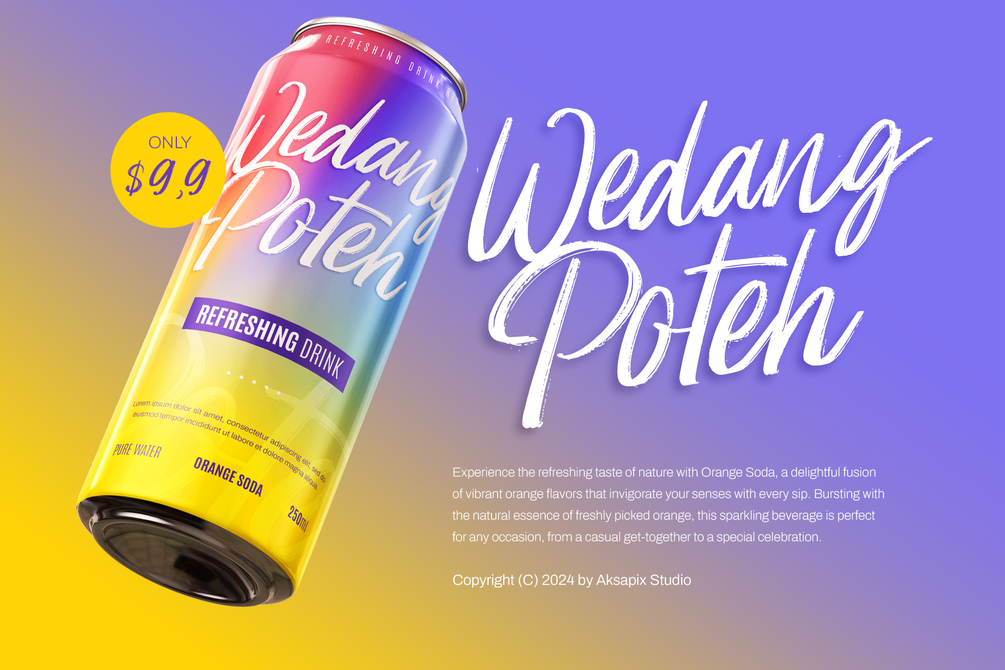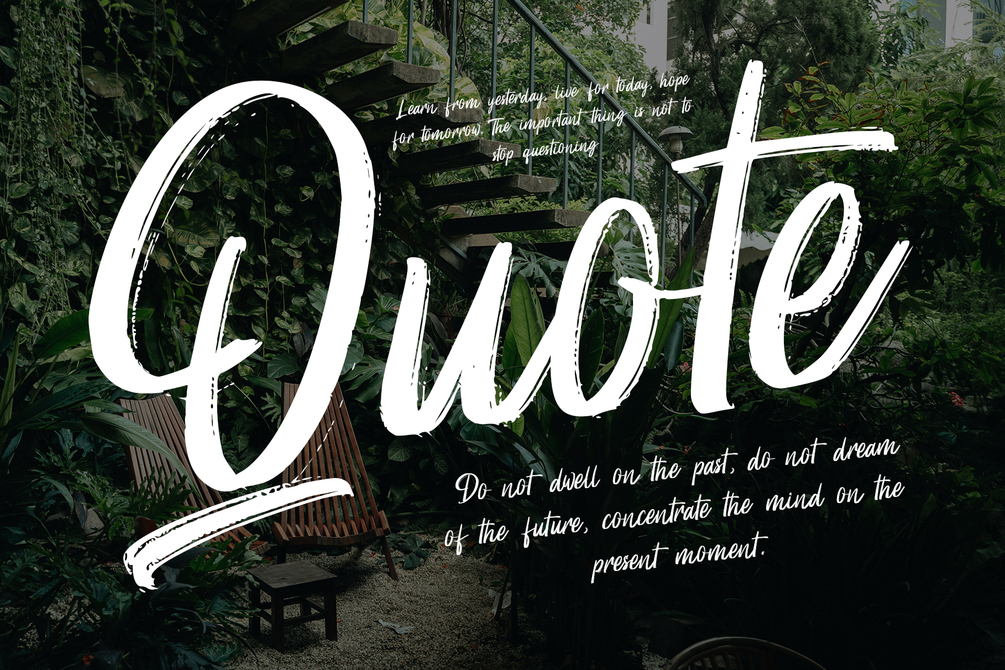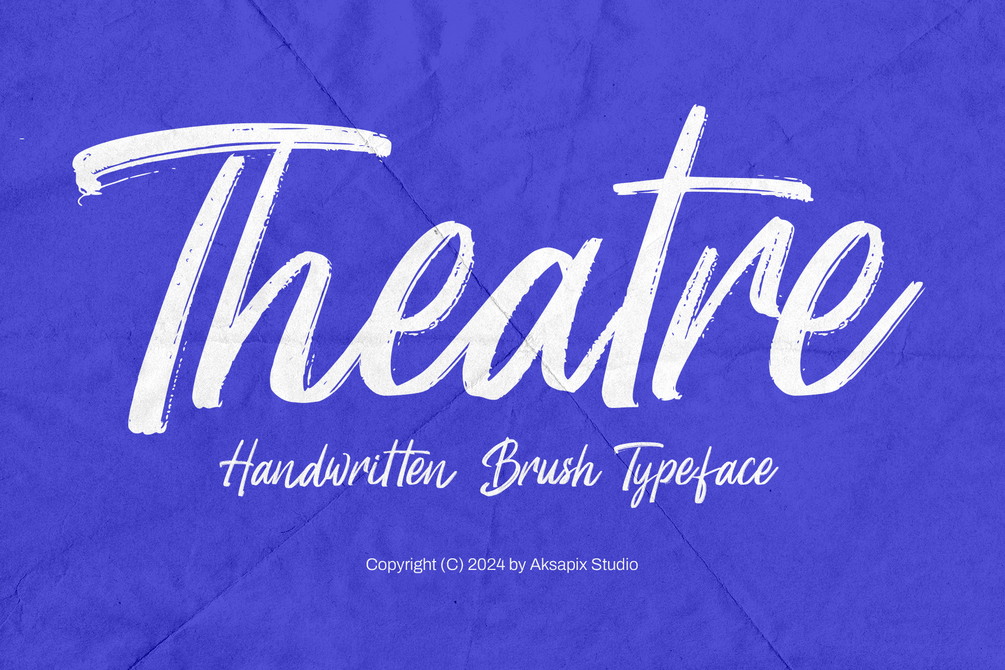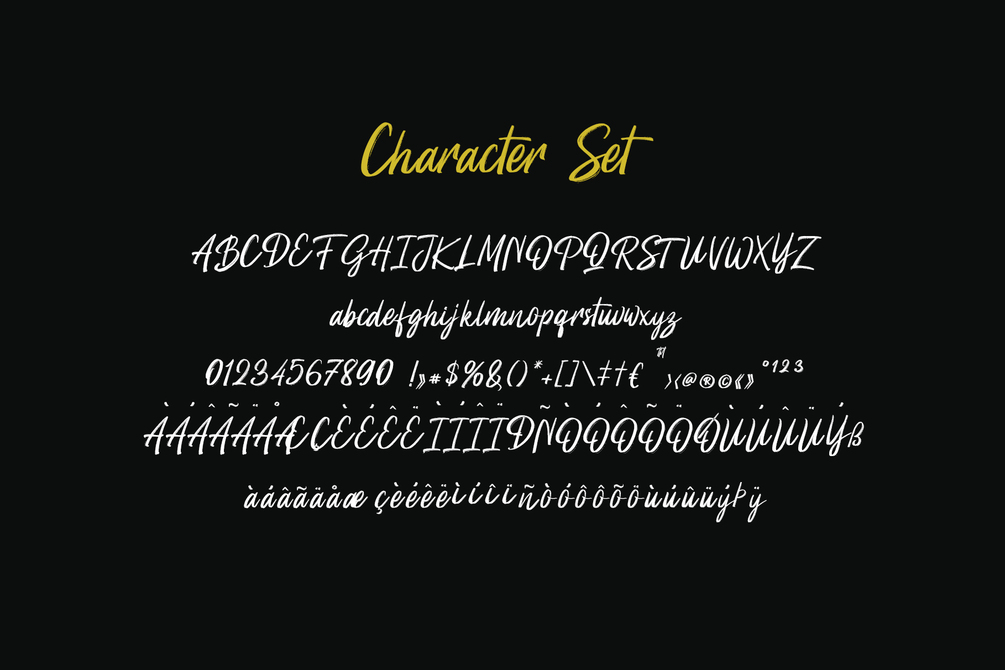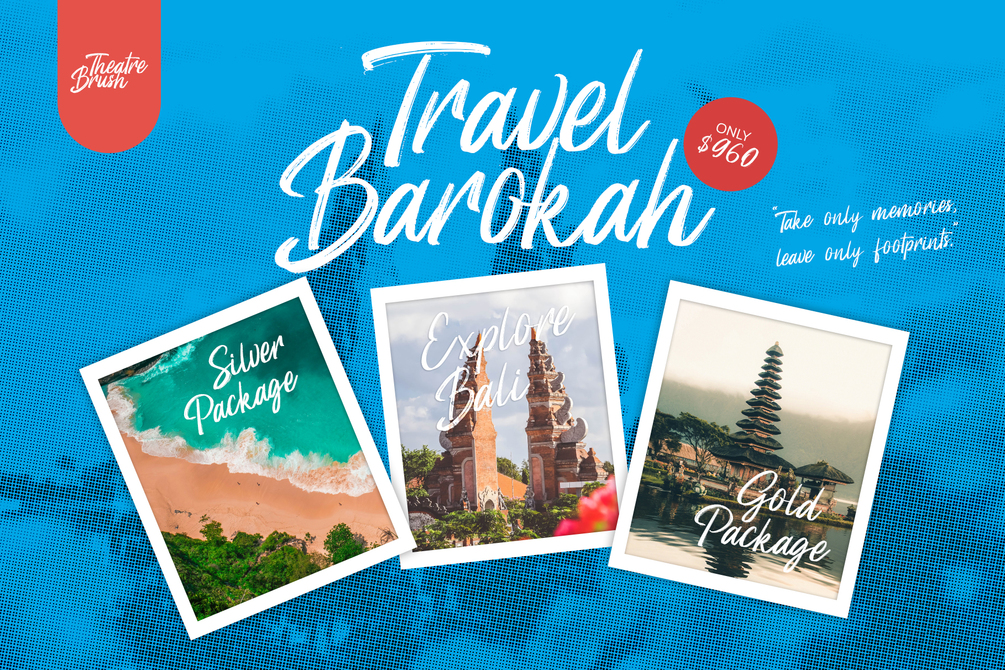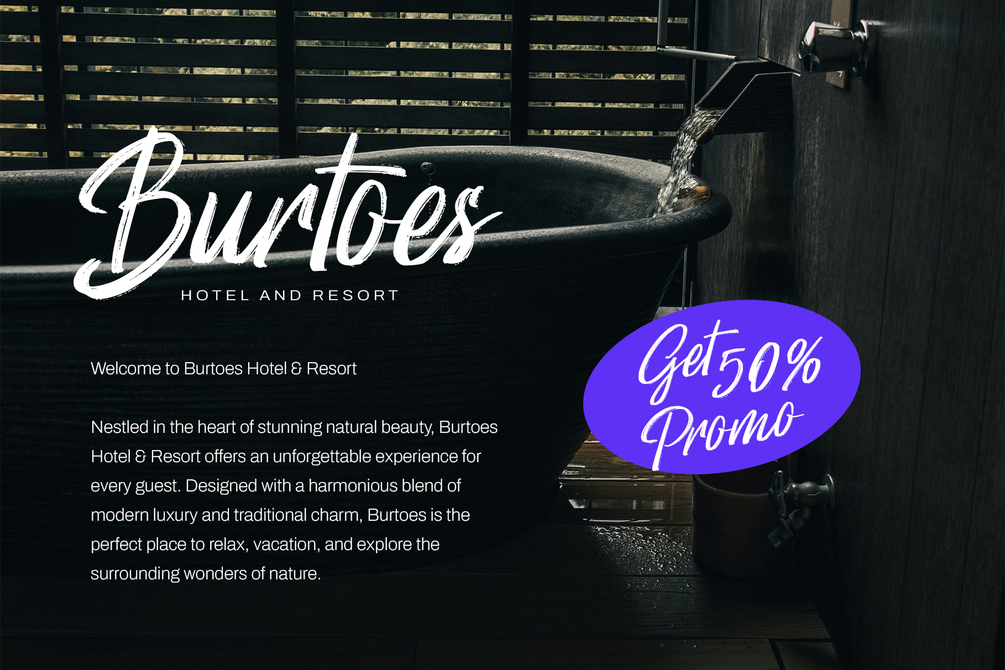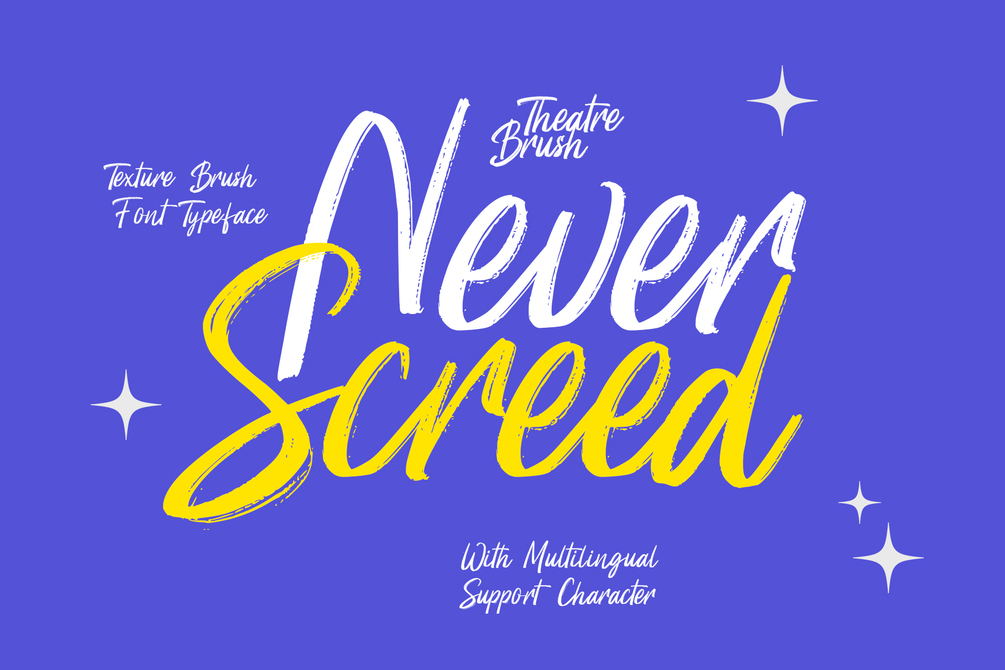
Theatre - Handwritten Brush Typeface
Introducing Theatre - Handwritten Brush Typeface, a dynamic and expressive font that brings a bold, personal touch to your designs. With its natural brush strokes and authentic feel, Theatre is perfect for projects that need a creative and artistic flair. This font includes a full set of standard characters (uppercase, lowercase, numbers, and punctuation) and offers multilingual support, making it versatile and adaptable for various design needs.
Features:
- Uppercase & Lowercase
- Punctuation & Numbers
- Multilingual Support
Perfect For:
- Artistic Posters
- Creative Branding
- Album Covers
- Social Media Posts
- Handmade Product Labels
Add a splash of creativity and personality to your projects with Theatre - Handwritten Brush Typeface. Whether you're designing a vibrant poster, an eye-catching album cover, or a unique brand identity, Theatre delivers a powerful and distinctive look.